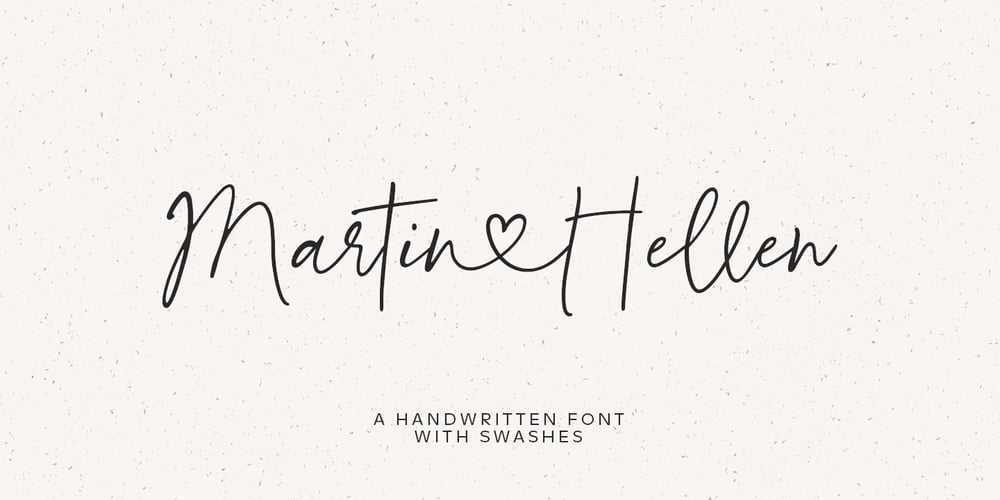
Martin&Hellen Font Family was designed by Dmitrii Chirkov and published by Supfonts. Martin&Hellen contains 1 styles and family package options. Martin&Hellen will be perfect for wedding lettering, beautiful frame for your home, book covers, greeting cards, logos, marketing, magazines or anything that requires cute handwritten lettering :)What’s inside: Martin&Hellen.otf Multilingual support Cricut support Swashes If you have any questions, please contact me directly or in instagram @superdizigner